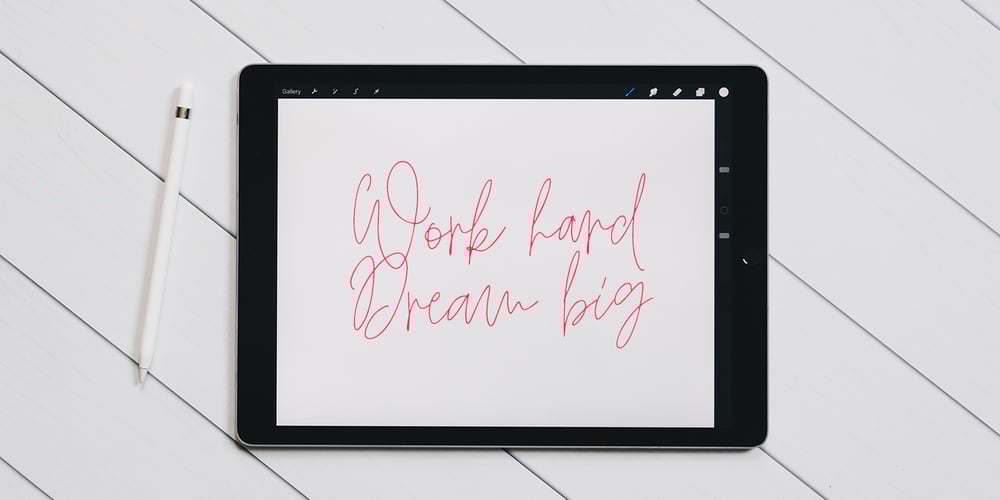
Hamilton Signature Script
Hamilton Signature Script font
Hamilton Signature Script Font Family was designed by Dmitrii Chirkov and published by Supfonts. Hamilton Signature Script contains 1 styles and family package options. Meet my new signature script Hamilton! Hamilton includes full set of lovely uppercase and lowercase letters, multilingual symbols, numerals and punctuation. This is so perfect for invitations, monograms etc What’s Included: Hamilton Script OTF / TTF Multilingual support Check out my blog: www.instagram.com/dmitriychirkov pinterest.com/dmitriychirkov7 Thanks so much for checking out my shop! All the best, Dmitrii